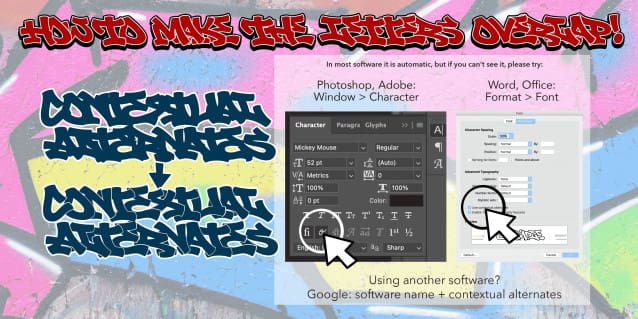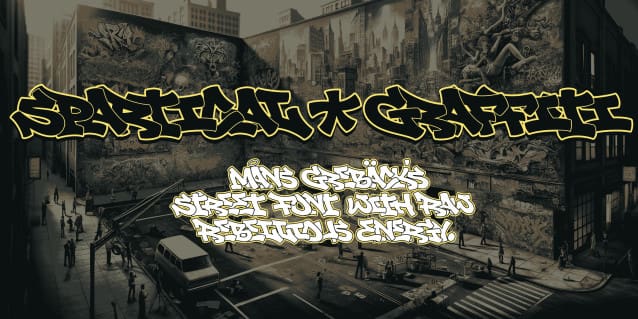
Spartical Graffiti Font
Spartical Graffiti captures the raw energy and vibrant spirit of hip hop and street culture. Activate contextual ligatures to make the letters overlap!